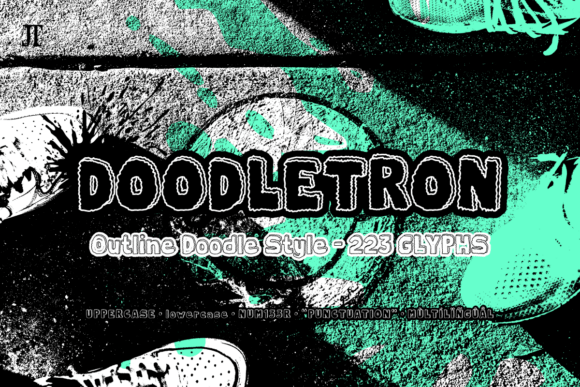
Where Creativity Meets Chaos: Unleash the Power of Doodletron Font
Remember that moment when you were brainstorming ideas for your next design project and suddenly a spark of creativity hit you? The rush of excitement as you started sketching out rough drafts, letting your imagination run wild and free? That’s exactly the kind of energy Doodletron Font embodies.
Doodletron Font is a bold and playful outline doodle-style font that’s perfect for designers who want to add a touch of personality to their work. With its hand-drawn sketch look, every letter feels spontaneous and expressive, giving your projects a unique and artistic vibe. Whether you’re working on posters, stickers, comics, or streetwear designs, Doodletron Font is the perfect choice for adding a dash of fun and creativity to your work.
As a designer, you know how important it is to stand out from the crowd. That’s where Doodletron Font comes in – a font that’s not only unique but also versatile and easy to use. With its bold and playful style, you can bring your ideas to life and make them truly unforgettable.
Doodletron Font Key Features
- Unique Characteristics: Features a playful, futuristic design with a mix of digital and hand-drawn elements, perfect for creating eye-catching and modern designs.
Doodletron Font Review
At first glance, the Doodletron font seems like a quirky and fun addition to any design project. ✨ The playful, handwritten style makes it perfect for creating a casual, approachable vibe. I can see it working well in social media graphics, advertising, or even children’s educational materials.
One of the standout features of Doodletron is its versatility. ✨ It’s available in a range of weights and styles, from bold and playful to delicate and cursive. This makes it easy to adapt to different design contexts and tone down or amplify the font as needed.
However, I do have some reservations about the font’s limitations. ⚠️ For one, it may not be suitable for more formal or professional projects, as its playful nature may come across as unprofessional. Additionally, the font’s character set may not be as comprehensive as other fonts, which could lead to issues with text spacing and alignment.
Overall, I think Doodletron is a solid choice for designers looking for a fun and engaging font. It’s a great addition to any design library, but it’s not a one-size-fits-all solution. Be mindful of its limitations, and use it judiciously to achieve the desired effect.
- Fun and engaging handwritten style
- Versatile, with multiple weights and styles
- Perfect for casual, approachable design projects
- May not be suitable for formal or professional projects
- Character set may not be comprehensive
Doodletron Font Practical Application Guide
The Doodletron Font is ideal for:
– Creating playful and whimsical designs.
– Adding a touch of nostalgia to your branding.
– Designing children’s products, such as books and toys.
Remember to use the Doodletron Font in moderation, as its playful style can be overwhelming if overused.